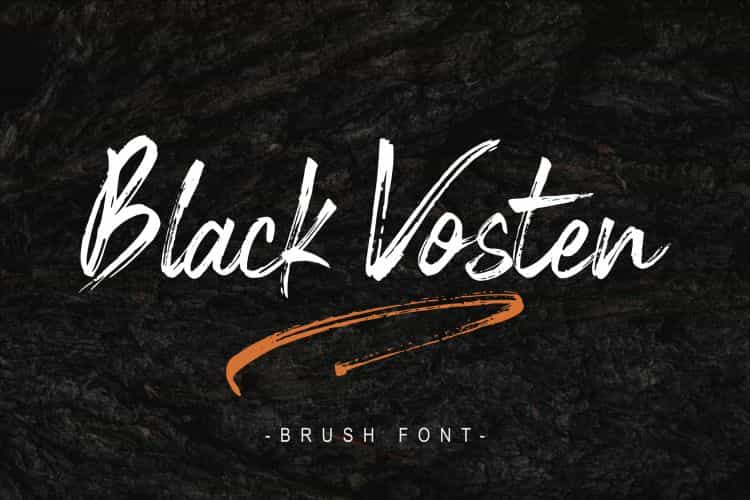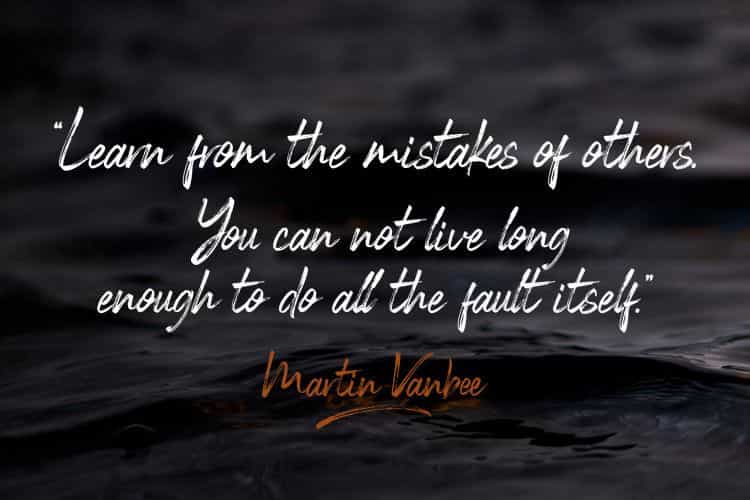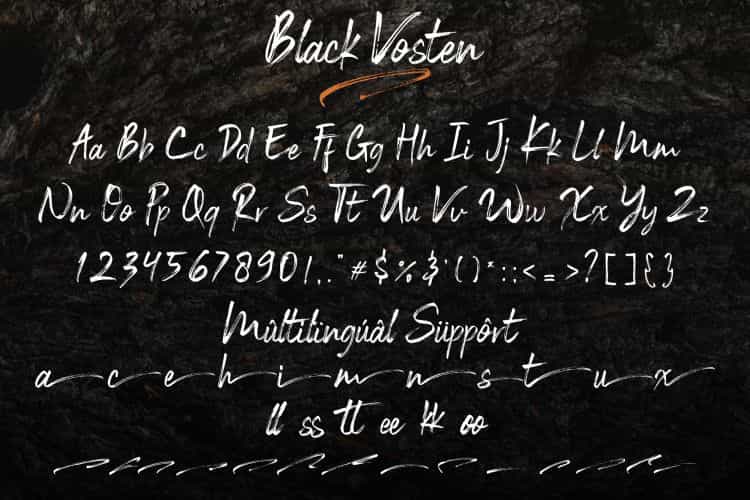
Black Vosten Brush Font – is script brush font with handwriting style. For those of you who are look for a dose of love and modernity for your design or branding, it can be used for the following. Pandanwangi has provided and designed this one. It is a brush font that is multilayered and has a fresh look/style.